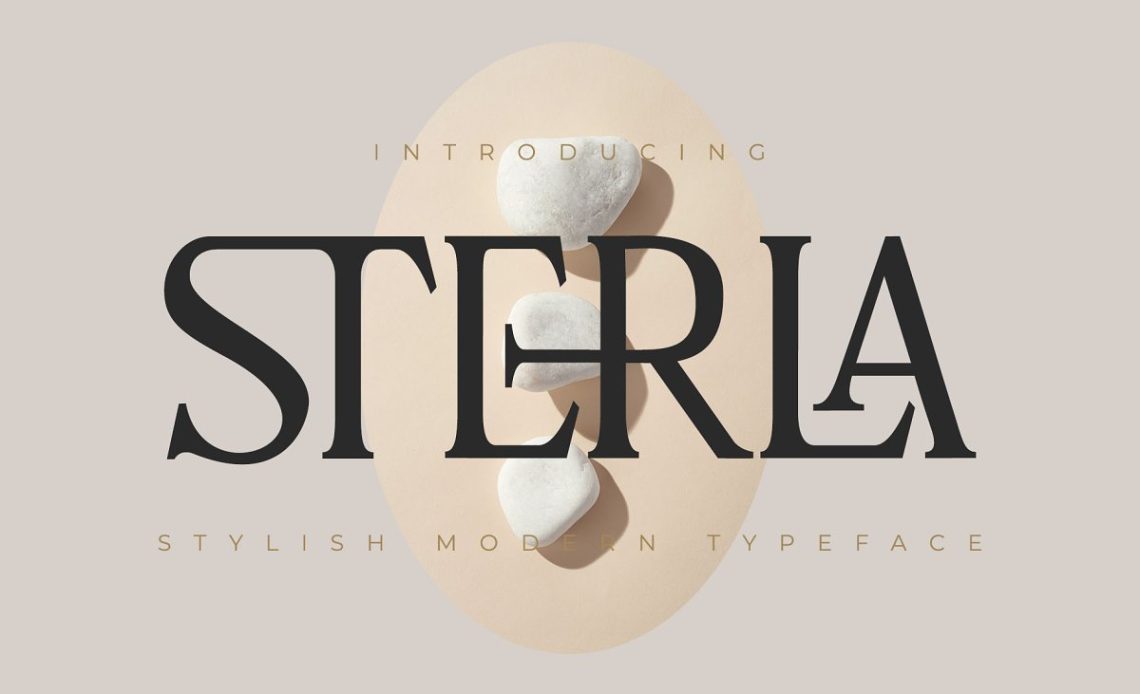
Presenting Sterla moderen stylish typeface - the perfect choice for creating a formal and professional impression in your designs. With its classic serif style, Sterla Font is designed to elevate your projects and leave a lasting impact on your audience.
What makes Sterla Serif truly special? It's the exquisite ligature arts that give this font its unique character and distinguished look. Each letter has been carefully crafted to add a touch of elegance and sophistication to your designs.
With a wide range of variations to choose from, you can customize your text to suit your personal taste and style. Whether you're working on branding projects, logos, wedding designs, or social media posts, Sterla is a versatile font that will meet all your creative needs.
But that's not all – Sterla is also highly readable, ensuring that your message is clear and easily understood. Its medium contrast display font is perfect for advertisements, product packaging, labels, photography, invitations, and more. Your projects will stand out with Sterla's modern fashion serif font.
Sterla moderen stylish typeface is brought to you by alif graphic, a trusted name in the industry. Each letter has been meticulously designed to make your text look unique and captivating.